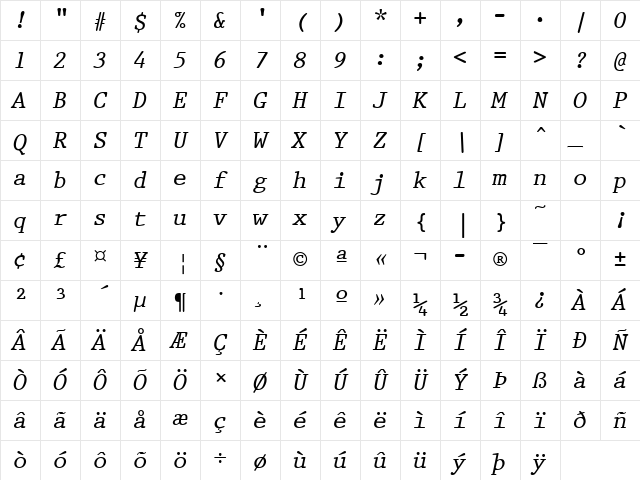
Prestige Italic Free Font
Prestige Italic
Design Context for Prestige
Prestige is a composed and adaptable typeface that performs quietly and consistently across a wide range of design contexts. The slanted form adds forward momentum and visual energy.
Pro Tip: Use Prestige for emphasis, pull quotes, and subheadings where its slanted energy can add rhythm to the layout.